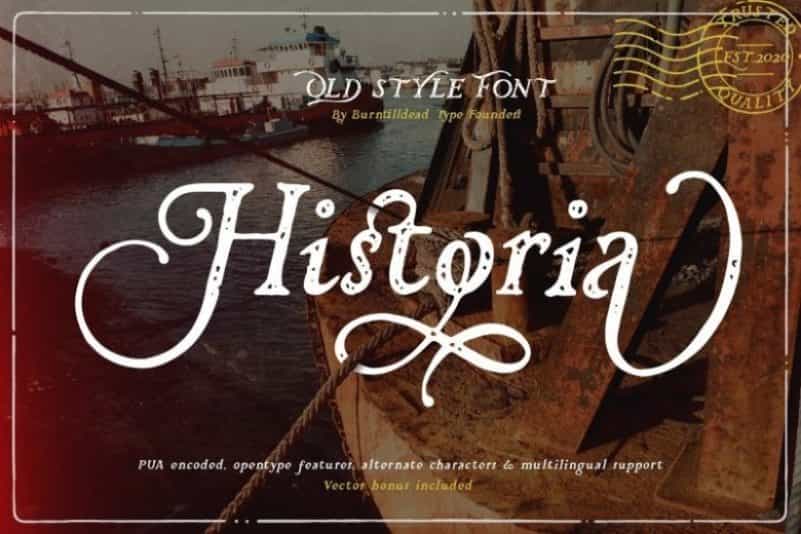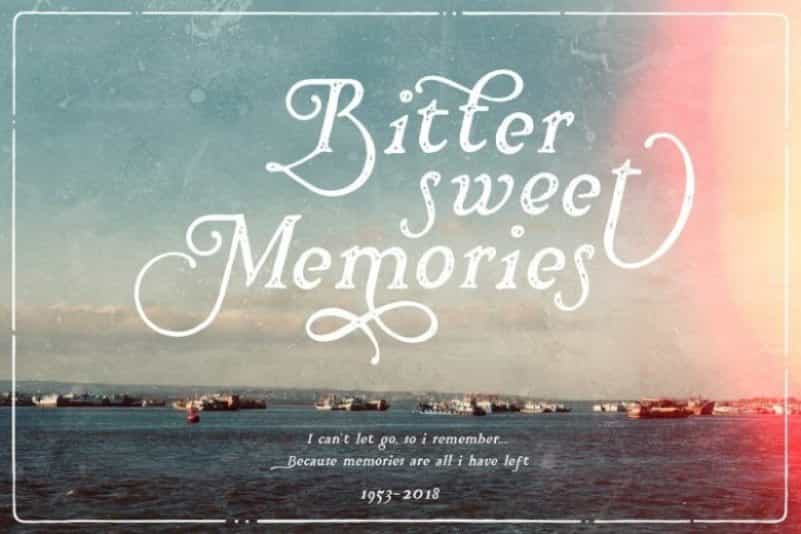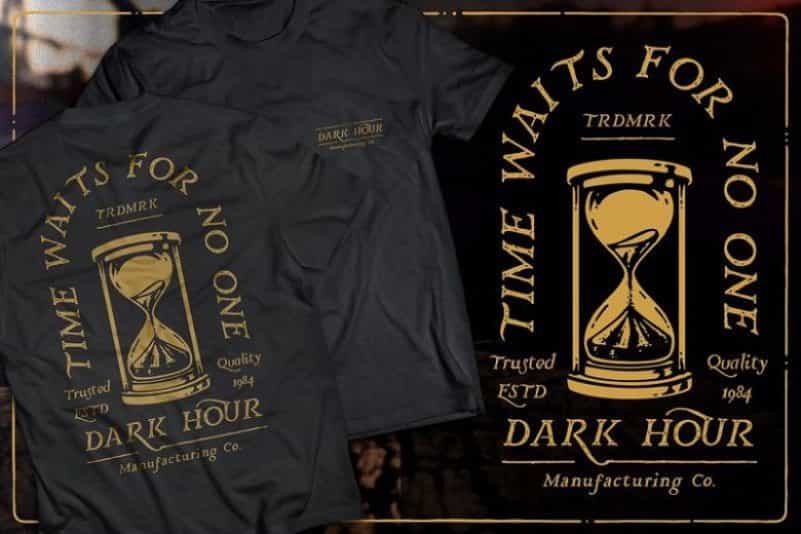
Introducing our new old style font called Historia. STORY BEHIND: Life is a journey, and every journey has its own special moment that gives a deep personal feeling, a memory to always remember, and Historia font tries to capture it.